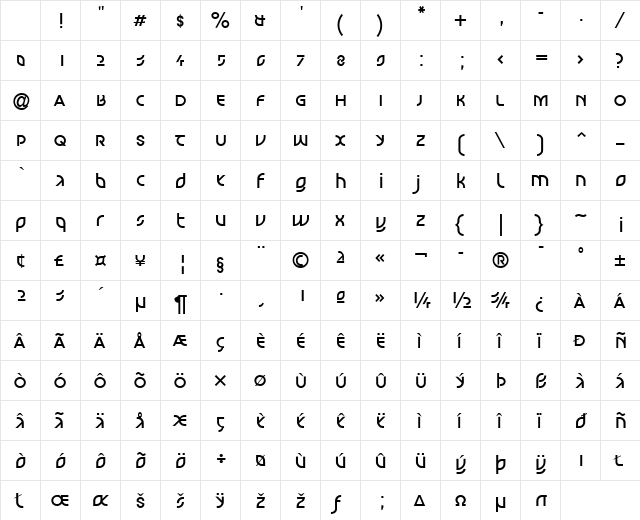
LTScott Mars Regular
LTScott Mars Family
Design Context for LTScott Mars
LTScott Mars is a composed and adaptable typeface that performs quietly and consistently across a wide range of design contexts.